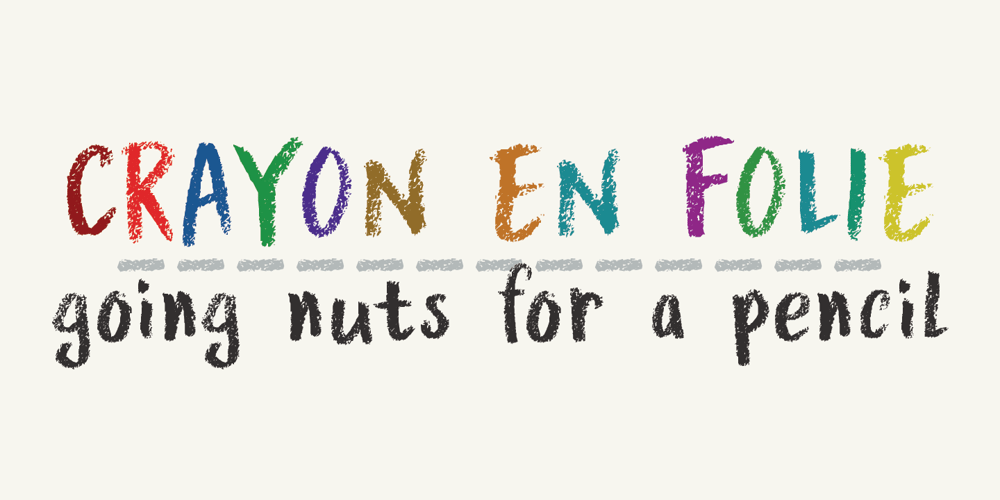
Crayon En Folie
Crayon En Folie font
Crayon En Folie Font Family was designed by David Kerkhoff and published by Hanoded. Crayon En Folie contains 2 styles and family package options. Crayon En Folie (‘Pencil Madness’ in French) is a straightforward pencil font, created with an extra thick black pencil. Use it for books, posters and packaging. Comes with a coloring box full of diacritics.